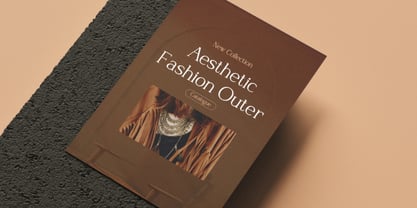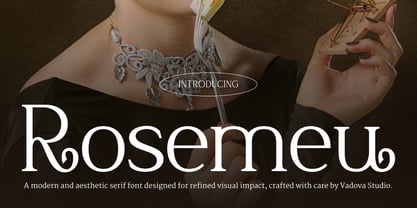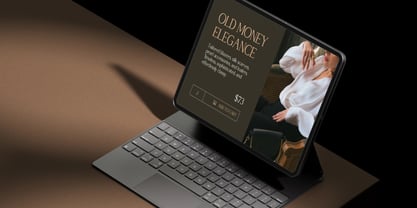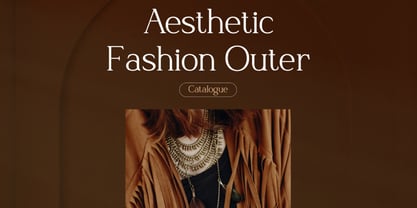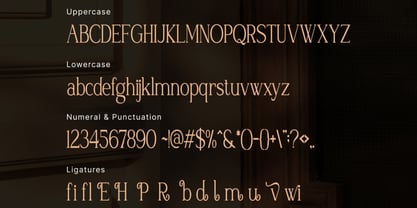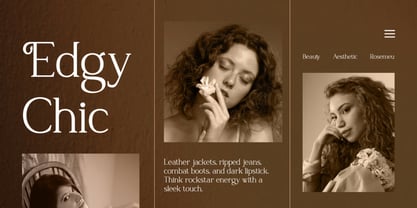
Rosemeu
Rosemeu is a modern serif font with soft curves and balanced proportions that create an elegant and aesthetic appearance. The letterforms feel light, refined, and calm, delivering a contemporary luxury tone without looking rigid. Subtle contrast and clean shapes give the font a graceful visual flow. Rosemeu is designed to express sophistication, clarity, and modern elegance. Rosemeu is perfect for modern branding, editorial layouts, fashion visuals, beauty and cosmetic branding, luxury logos, magazine headlines, wedding designs, portfolio presentations, packaging, social media typography, website headers, and refined print or digital projects that require a soft and elegant serif character.